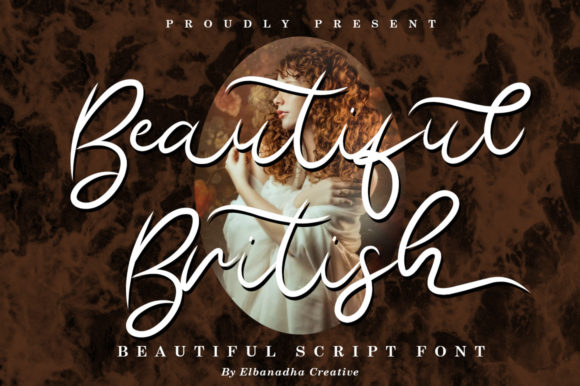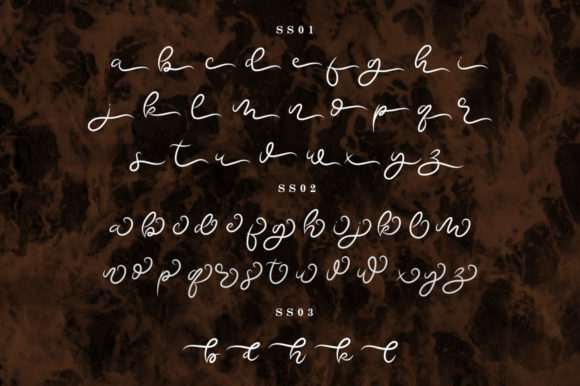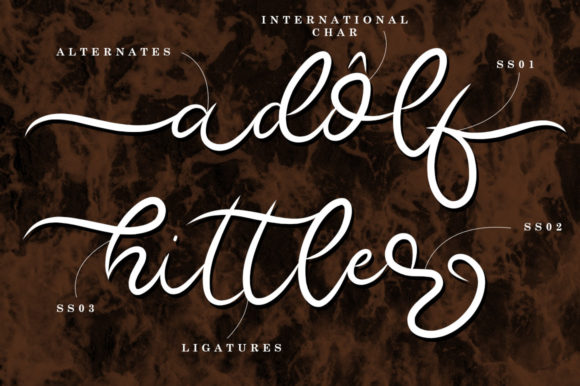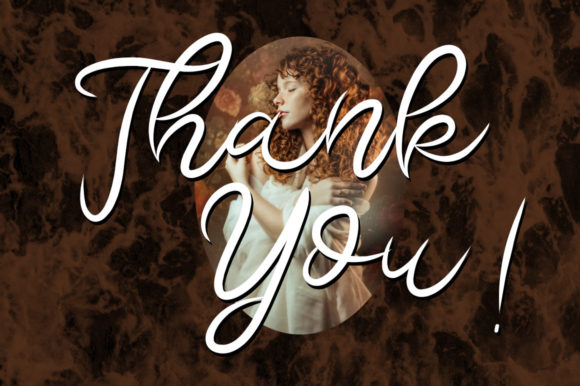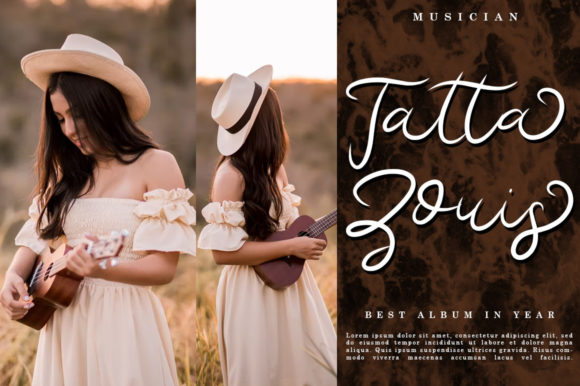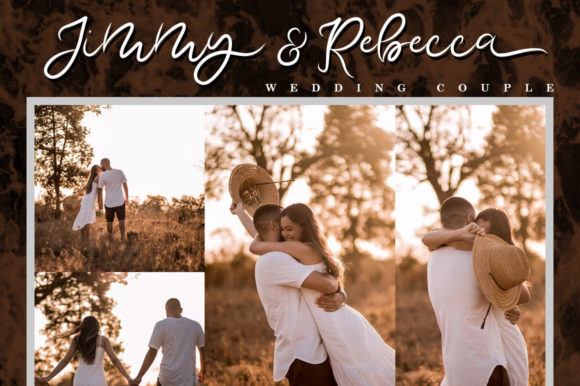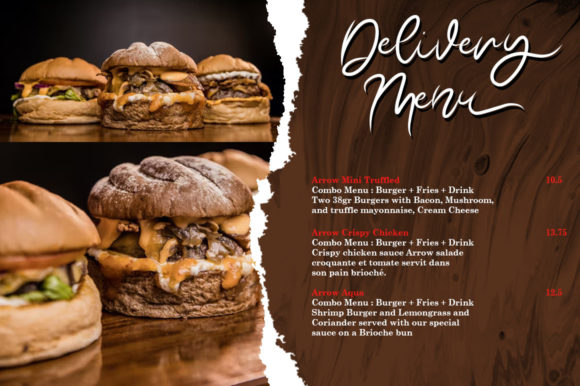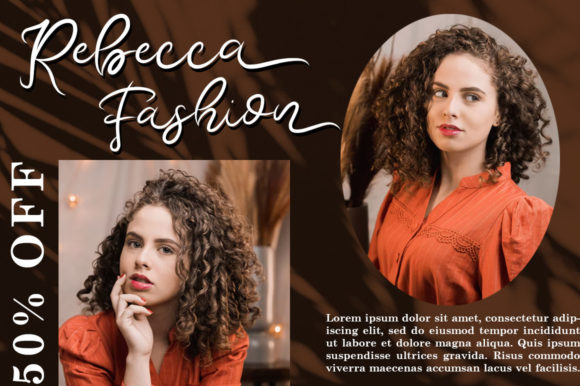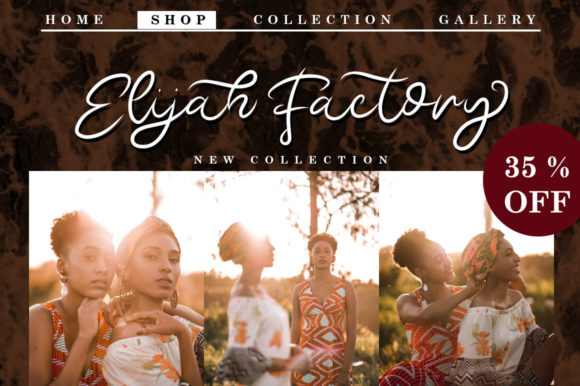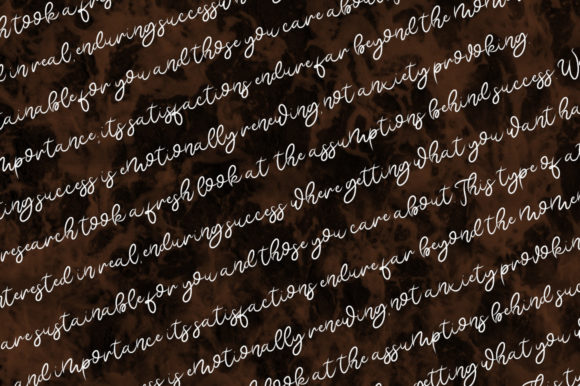
Beautiful British Font
About Beautiful British Font
Beautiful British is a stylish, simple, elegant, and adaptable handwritten font that adds a touch of sophistication to a variety of creative projects. With its versatile design, this font is well-suited for applications such as wedding invitations, business cards, greeting cards, social media posts, wall art, websites, and more. The stylish and elegant characteristics of Beautiful British make it an excellent choice for conveying a refined and timeless aesthetic.
In wedding invitations and business cards, Beautiful British’s elegant script can contribute to a distinctive and memorable visual identity. The font’s simple yet stylish design adds a touch of uniqueness, making your brand or event stand out with sophistication.
For greeting cards and social media posts, Beautiful British’s adaptable and elegant style creates a harmonious and aesthetically pleasing look. The font’s versatility allows it to adapt seamlessly to different themes and occasions, adding a touch of sophistication to your designs.
Whether applied to digital or print materials, Beautiful British stands out with its stylish and elegant design. The font’s ability to convey simplicity and sophistication adds a level of visual appeal to your projects, making them more refined and captivating.
In summary, Beautiful British is more than just a font; it’s a stylish, simple, and elegant handwritten design tool that enhances the beauty of your projects. Whether used in wedding invitations, business cards, social media posts, or other creative applications, Beautiful British brings a timeless and refined aesthetic that elevates your typographic compositions with grace and style.